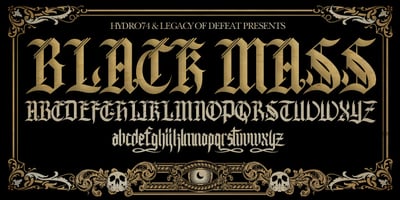
H74 Black Mass Font Family was designed by Joshua M. Smith and published by Hydro74. H74 Black Mass contains 1 styles and family package options. Black Mass is a black-letter / tattoo structure with a slight progressive edge.